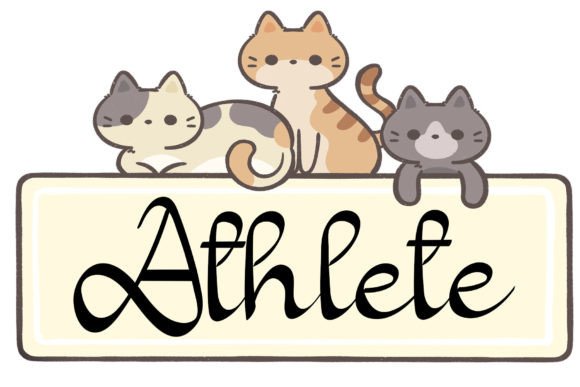
Prepare yourself for Athlete Font, a script typeface bursting with individuality and grace. Crafted by BabyArt, this font family stands as a testament to creativity and exquisite taste. Experience the world of Athlete Font, meticulously designed to elevate your designs to exceptional heights.
With its flowing strokes and enchanting curves, Athlete Font dances across your screen, capturing hearts and transforming words into works of art. Each letter exudes a sense of elegance that will leave you spellbound. Experience the charm of hand-lettered designs, as if each word were carefully penned by a master calligrapher.
Athlete Font is not your ordinary font. It possesses a unique character that demands attention. Say goodbye to boring, conventional fonts and embrace the beauty of Athlete Font. Its organic shapes and natural flow make it an ideal choice for those seeking to add a touch of magic to their designs.
Immerse yourself in the versatility of Athlete Font. Whether you're creating wedding invitations, greeting cards, birthday party flyers, or any other form of creative expression, this font will effortlessly enhance your vision. Its captivating script style adds a personal touch that leaves a lasting impression.
Athlete Font is more than just a font; it's a storytelling tool that allows your creativity to flourish. Bring your ideas to life and captivate your audience with this extraordinary font. Elevate your designs and embark on a journey of artistic exploration with Athlete Font. Embrace its captivating essence and let your imagination soar.